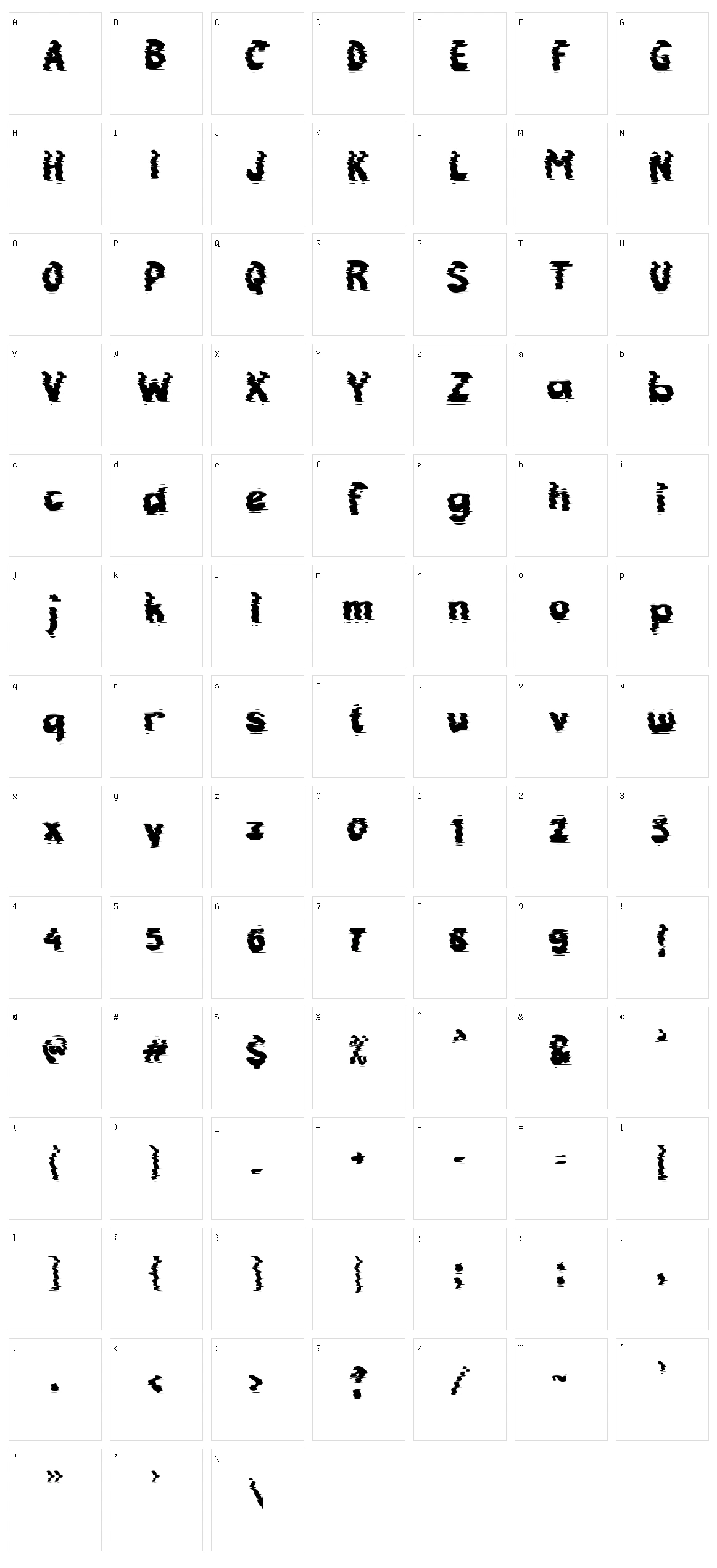
The free font c Cholesterol Glitch is carefully designed by wep, showcasing a thoughtful balance of creativity and usability and falls under the Distorted font style. When you download the ZIP file, it contains only 32.21 KB of font files, making it lightweight and quick to download. Please review the license details below to understand permitted usage and distribution rights. If license information is not available, we recommend using this font for personal projects only or contacting the author directly for commercial usage permissions.